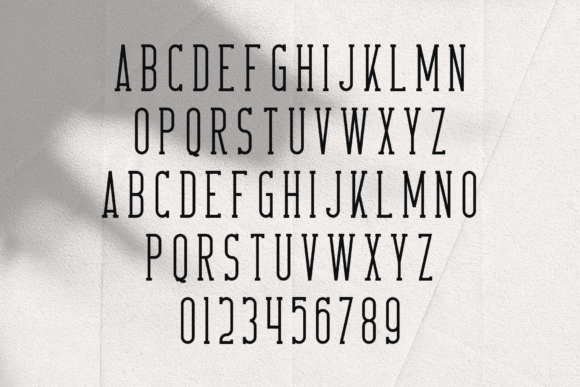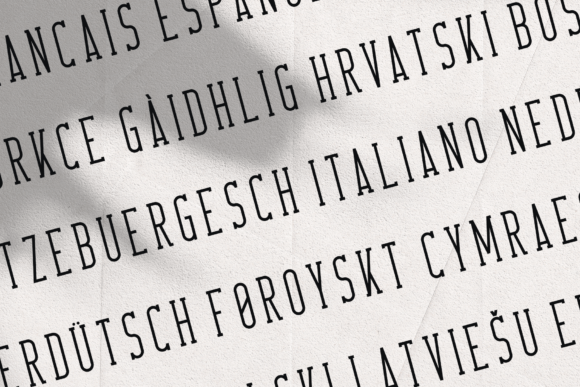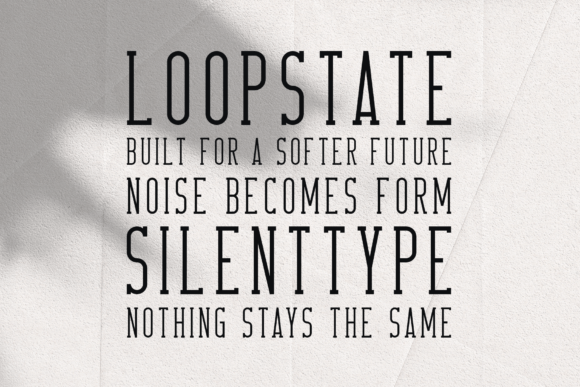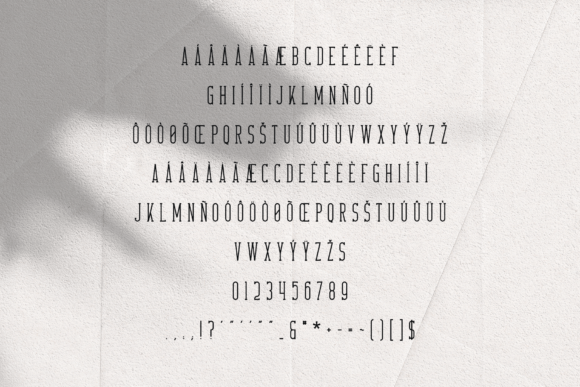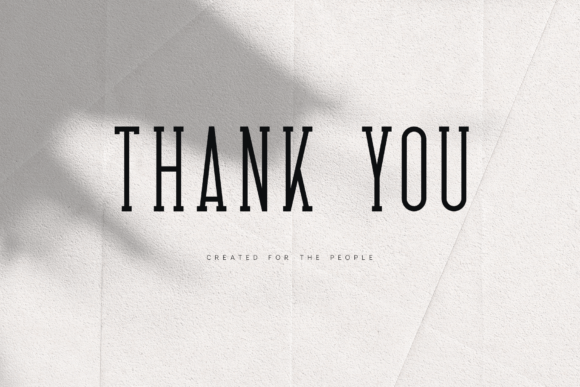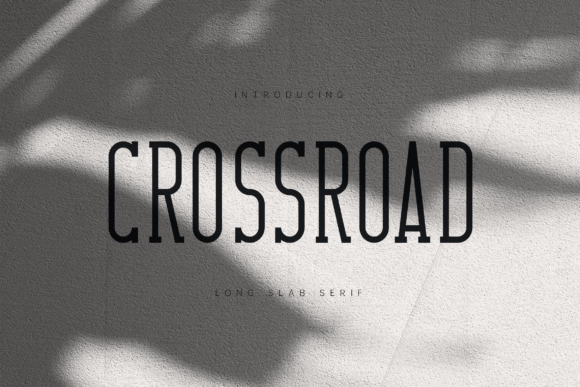
Introducing Crossroad Font: Elevate Your Designs with Elegance and Strength
In the world of typography, finding the perfect font that balances elegance and strength can be a daunting task. However, with Crossroad Font, designers and crafters can now elevate their projects with a refined long slab serif typeface that exudes calmness, sophistication, and timelessness. Designed for modern editorial, branding, and display use, Crossroad Font is an excellent addition to any design arsenal.
Crossroad Font boasts tall proportions, narrow letterforms, and subtle slab serifs, making it an ideal choice for designers seeking a font that strikes a balance between elegance and strength. The font’s extended vertical structure lends itself perfectly to fashion editorials, cultural projects, and premium brand identities that require confidence without noise. The carefully crafted design ensures clarity and visual rhythm, making it suitable for various applications, including headlines, posters, magazines, logos, packaging, and minimalist layouts.
- Uppercase and Lowercase Letters: Crossroad Font includes a comprehensive set of uppercase and lowercase letters, allowing designers to create visually appealing text.
- Numerals, Punctuation, and Multilingual Support: The font also features numerals, punctuation, and extensive multilingual support, making it suitable for international projects.
Perfect for Designers Who Appreciate Quiet Sophistication
Crossroad Font is built for designers who appreciate quiet sophistication, where form is intentional. The font’s refined design and subtle slab serifs create a calm, contemporary tone while retaining a timeless, architectural character. This makes it an excellent choice for designers seeking a font that conveys elegance and sophistication without being too loud or overpowering.
Applications and Use Cases
Crossroad Font’s versatility makes it suitable for a wide range of applications, including:
- Fashion Editorials: The font’s extended vertical structure and elegant design make it perfect for fashion editorials, where style and sophistication are paramount.
- Cultural Projects: Crossroad Font’s timeless, architectural character makes it suitable for cultural projects, such as museum exhibitions, art installations, and cultural events.
- Premium Brand Identities: The font’s confident and sophisticated design makes it an excellent choice for premium brand identities, where elegance and refinement are essential.
- Headlines, Posters, and Magazines: Crossroad Font’s clarity and visual rhythm make it suitable for headlines, posters, and magazines, where readability and style are crucial.
Why Choose Crossroad Font?
With Crossroad Font, designers and crafters can elevate their projects with a refined, elegant, and sophisticated typeface that strikes a balance between elegance and strength. The font’s versatility, compatibility, and extensive features make it an excellent addition to any design arsenal. Whether working on fashion editorials, cultural projects, or premium brand identities, Crossroad Font is the perfect choice for designers seeking a font that conveys quiet sophistication and timelessness.
In conclusion, Crossroad Font is a valuable resource for designers and crafters seeking a refined long slab serif typeface that exudes elegance, sophistication, and timelessness. With its carefully crafted design, extensive features, and versatility, Crossroad Font is sure to become a go-to font for various design projects.